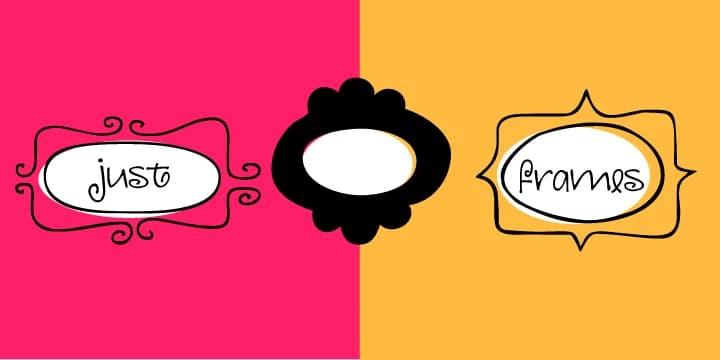
Playful and unpretentious, Just Frames by Outside the Line delivers exactly what its name suggests: 31 hand-drawn border designs that feel like they came straight from a sketchbook. The collection includes swirls, hearts, ovals, and squares, all rendered in both line and solid versions. This dual-style approach gives you real flexibility to shift the mood and weight of your designs depending on what the project calls for, whether you want delicate line work or bolder fills.
These frames shine brightest on wedding invitation suites where you need something beyond the standard digital templates, DIY scrapbook layouts that benefit from that authentic sketch-drawn feel, custom greeting card designs where personality matters, and decorative borders for social media graphics. Event stationery and boutique product labels are equally strong uses, as are any situations where you want borders that look genuinely handcrafted rather than computer-generated.
Pair Just Frames with a handwriting or script typeface to lean deeper into the personal aesthetic, or combine them with a clean geometric sans-serif to create visual contrast and let the frames carry the design weight. The sheer variety packed into this single typeface makes it a genuine workhorse for anyone building designs that need to feel authentic and hand-drawn. Get it on Creative Fabrica.
Just Frames Font is a versatile dingbats font that works for both headings and body text. Pair it with a contrasting sans-serif or serif font to add visual interest and a clear distinction between titles and body copy.